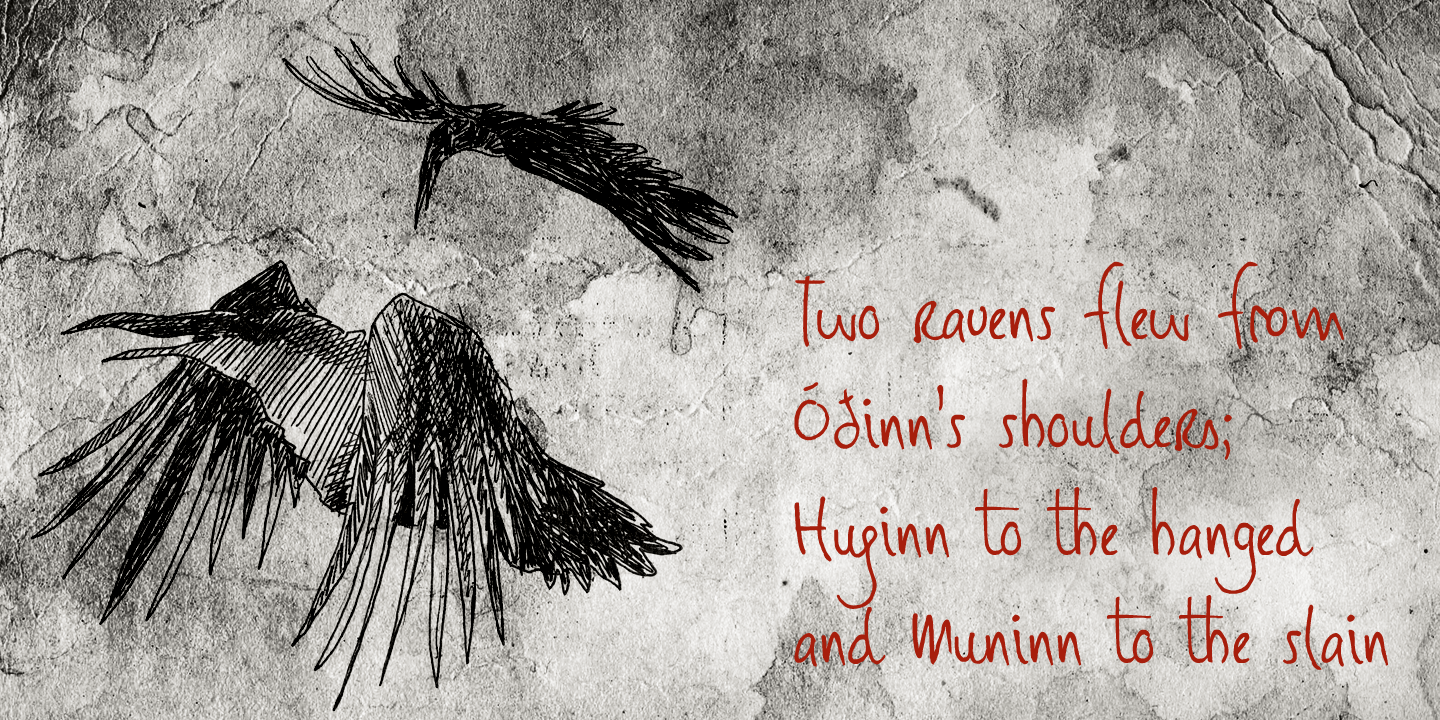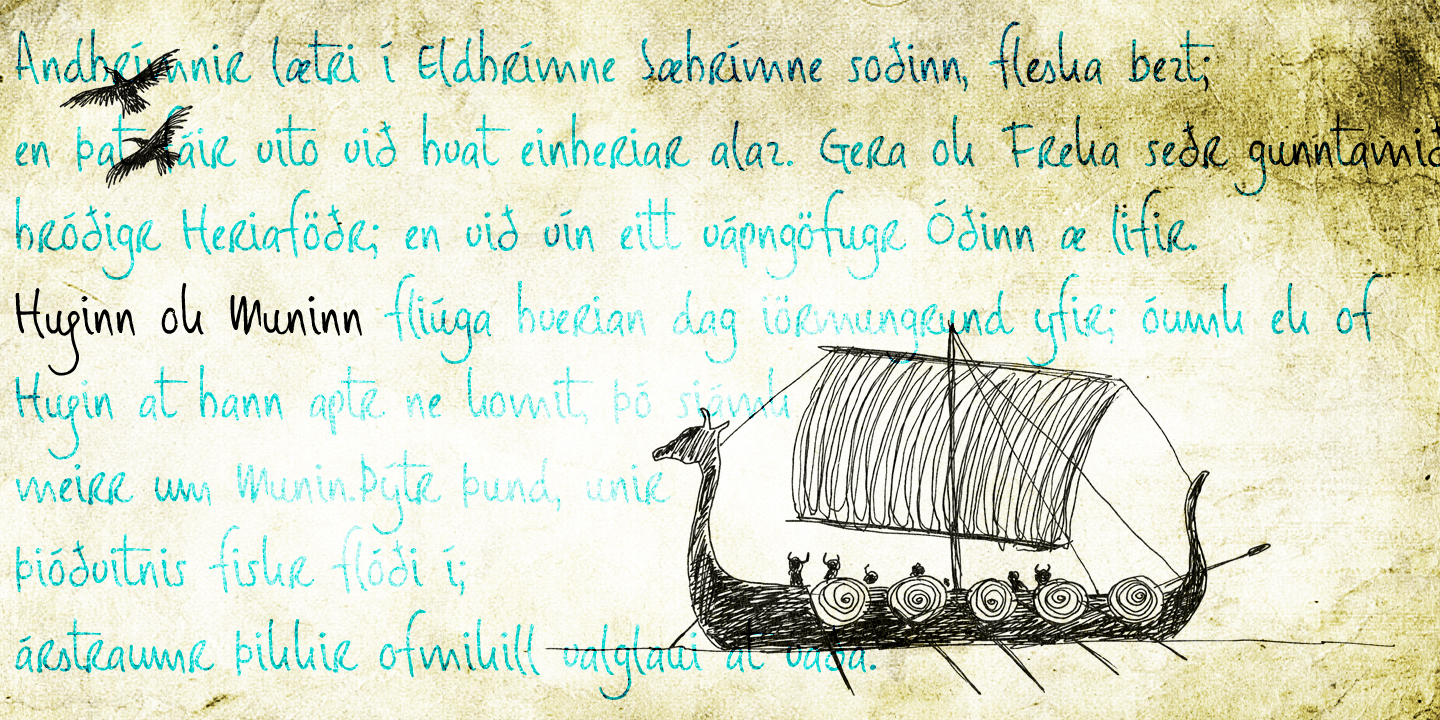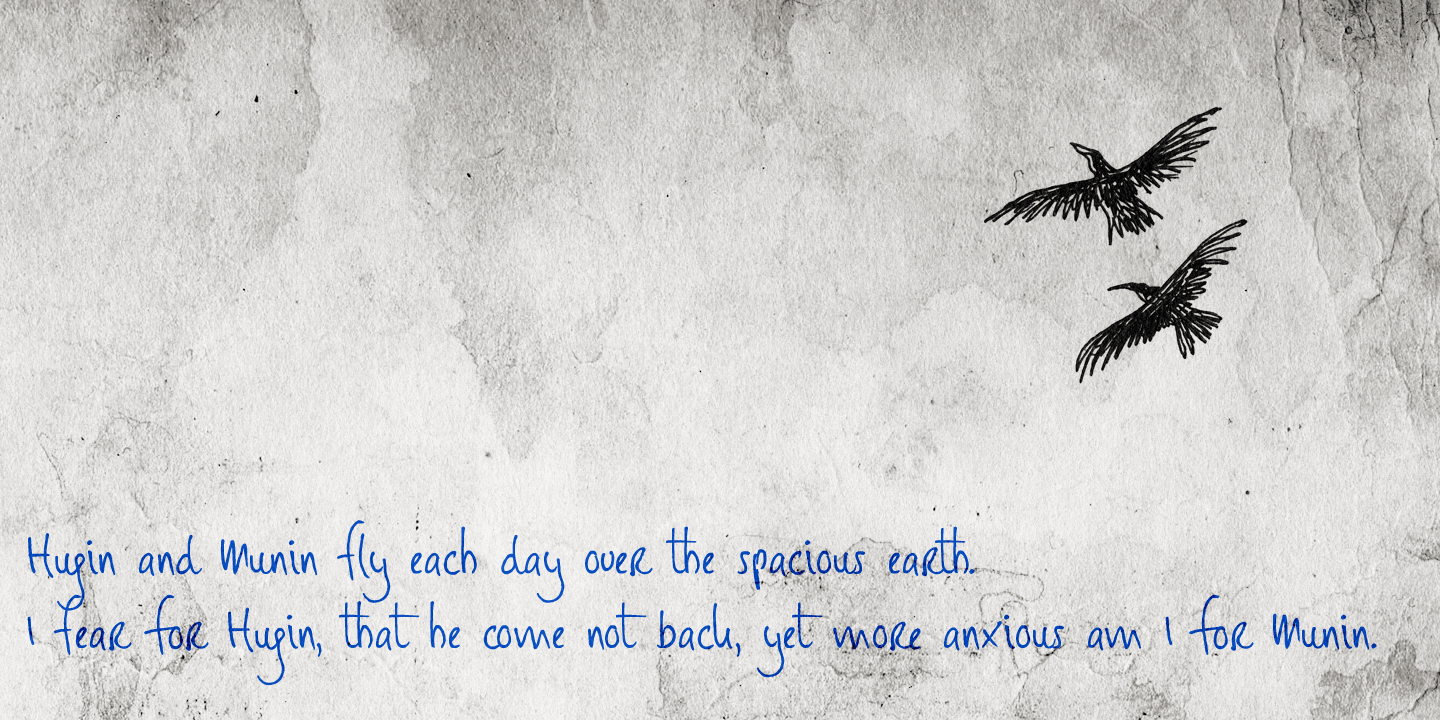
Huginn & Muninn
Huginn And Muninn are a pair of ravens that fly all over the world Midgard. They keep the god Odin up to date on the wheelings and dealings of everyone living under the sun. Huginn means 'thought? and Muninn means ?memory? or ?mind? in old Norse.
The font is a handwritten notebook-style typeface, messy yet legible. It is ideal to give your designs a lively, personal touch.